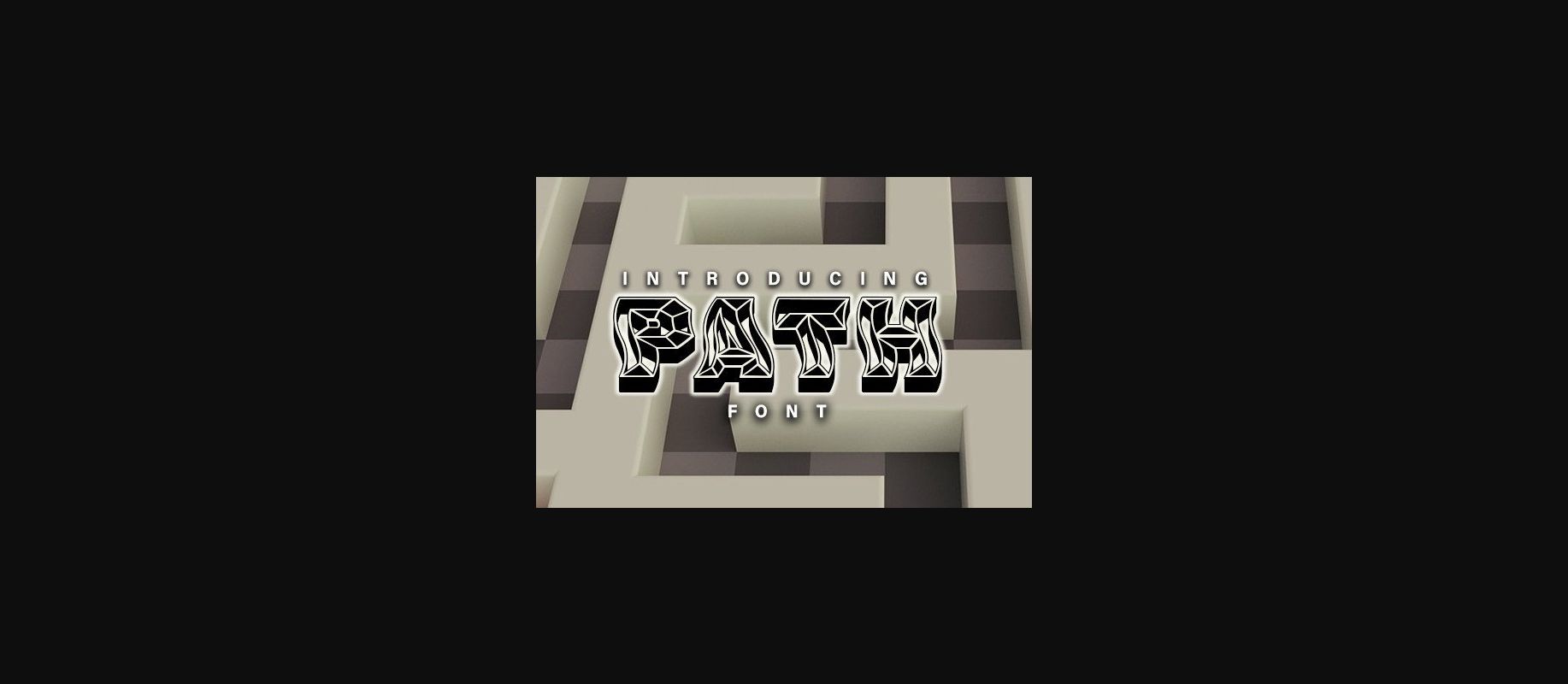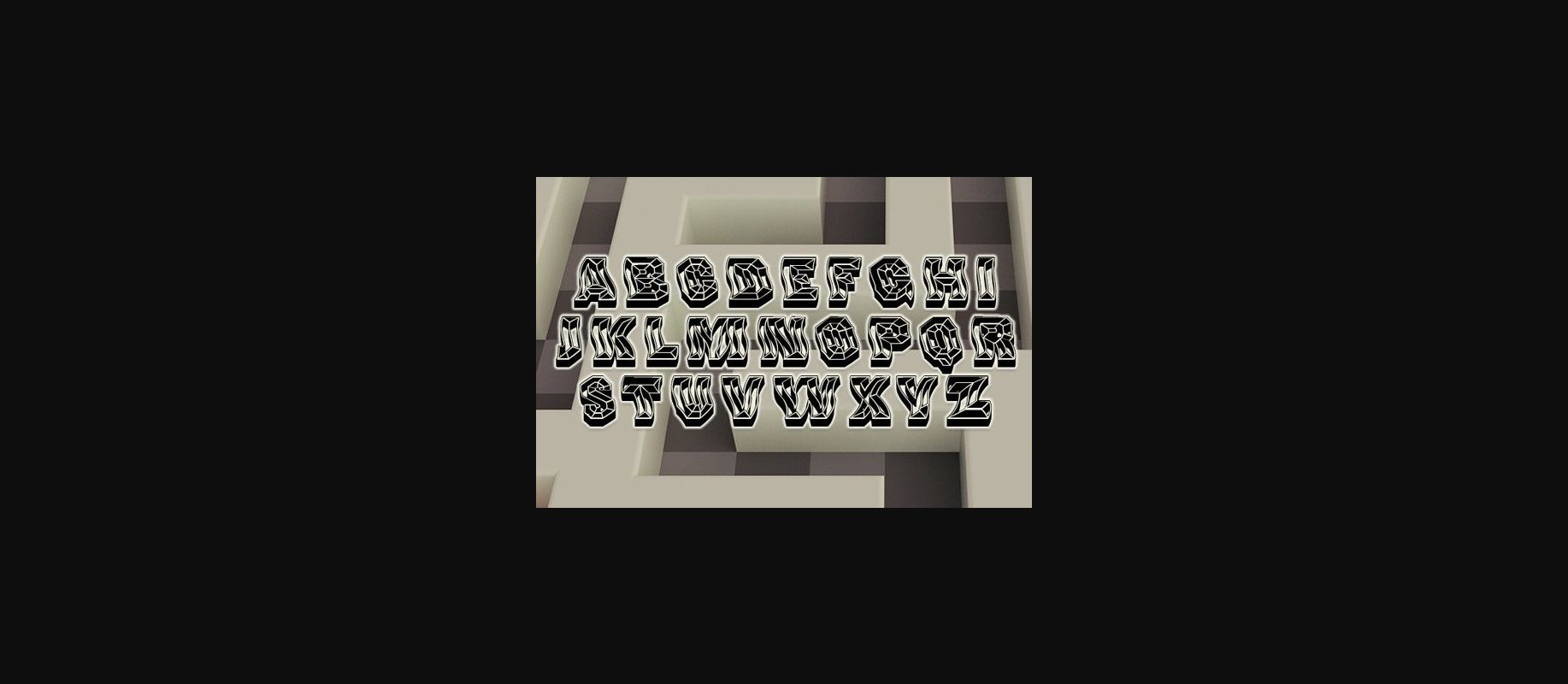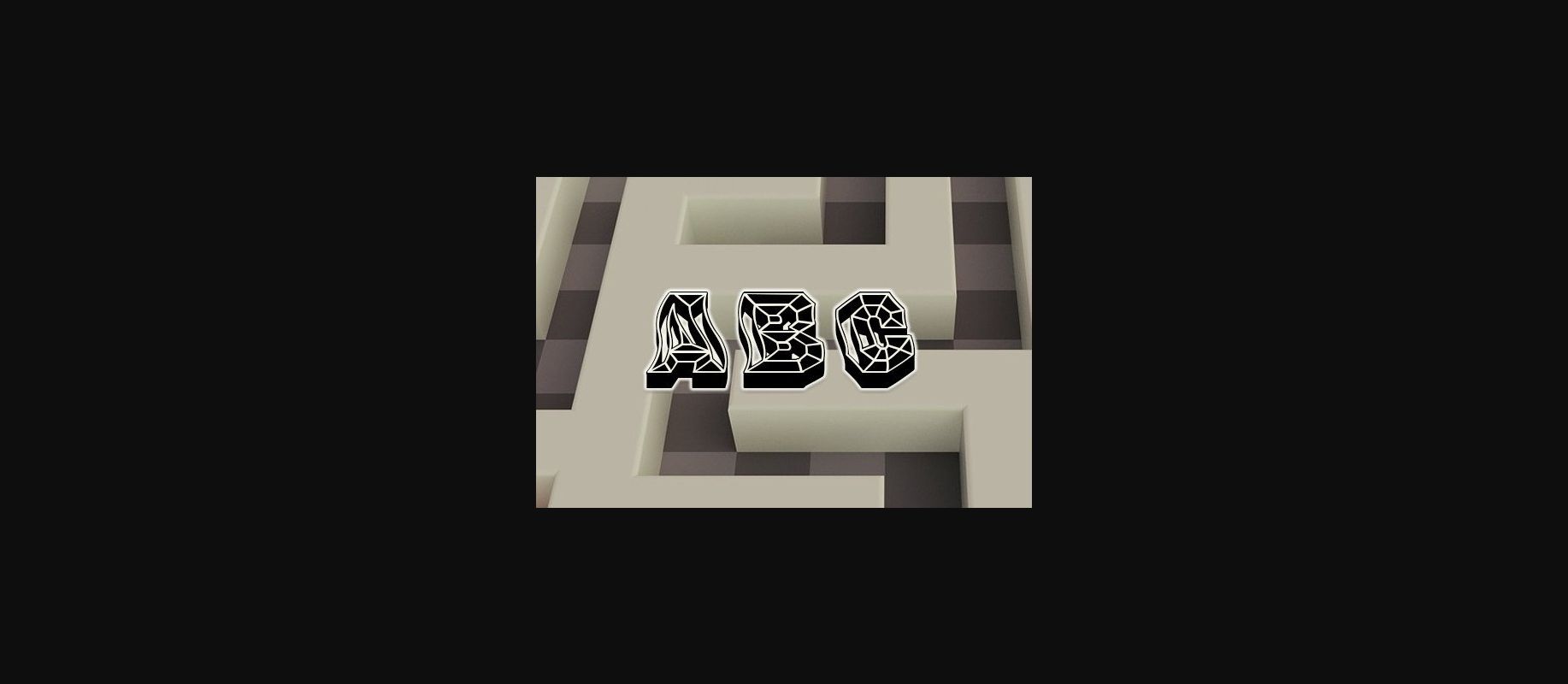
HomeDecorative FontsPath Font Decorative Fonts Path Font FacebookXPinterestWhatsApp 1 of 5 ... Path Font Poster 2... Path Font Poster 3... Path Font Poster 4... Path Font Poster 5... About Path Font Path is a wavy, cool decorative typeface that will look great on any of your designs. Use this font on flyers, banners, and much more. DOWNLOAD NOW People also explored Anji Font Coconut Font Rita – Family 50% Off Font Montana Font Cogan Curved Font Qillsey Einstein Font Bokeseni College Font Hendycroft Signature Font Calton Elegance Duo Font 420 0 TagsPathPath Font Previous articleCompass FontNext articleDaisy Love Font LEAVE A REPLY Cancel reply Comment: Please enter your comment! Name:* Please enter your name here Email:* You have entered an incorrect email address! Please enter your email address here Website: Save my name, email, and website in this browser for the next time I comment. Personal Use Free Astercla Personal Use Free Read more about this font Stone Cold Personal Use Free Read more about this font Bolt Electric Personal Use Free Read more about this font Knucklehead Personal Use Free Read more about this font BLOG Where to Buy American Fonts Online in 2024 Where to Buy American Fonts Online: The Ultimate Guide for 2024 Looking for the perfect American font to elevate your design projects? You're in the... Top 7 Google Fonts Alternatives for Faster and Privacy-Friendly Web Design (2025) Top 10 Handwritten Fonts That Elevate Your Designs 5 Fonts That Will Dominate Design Trends in 2026